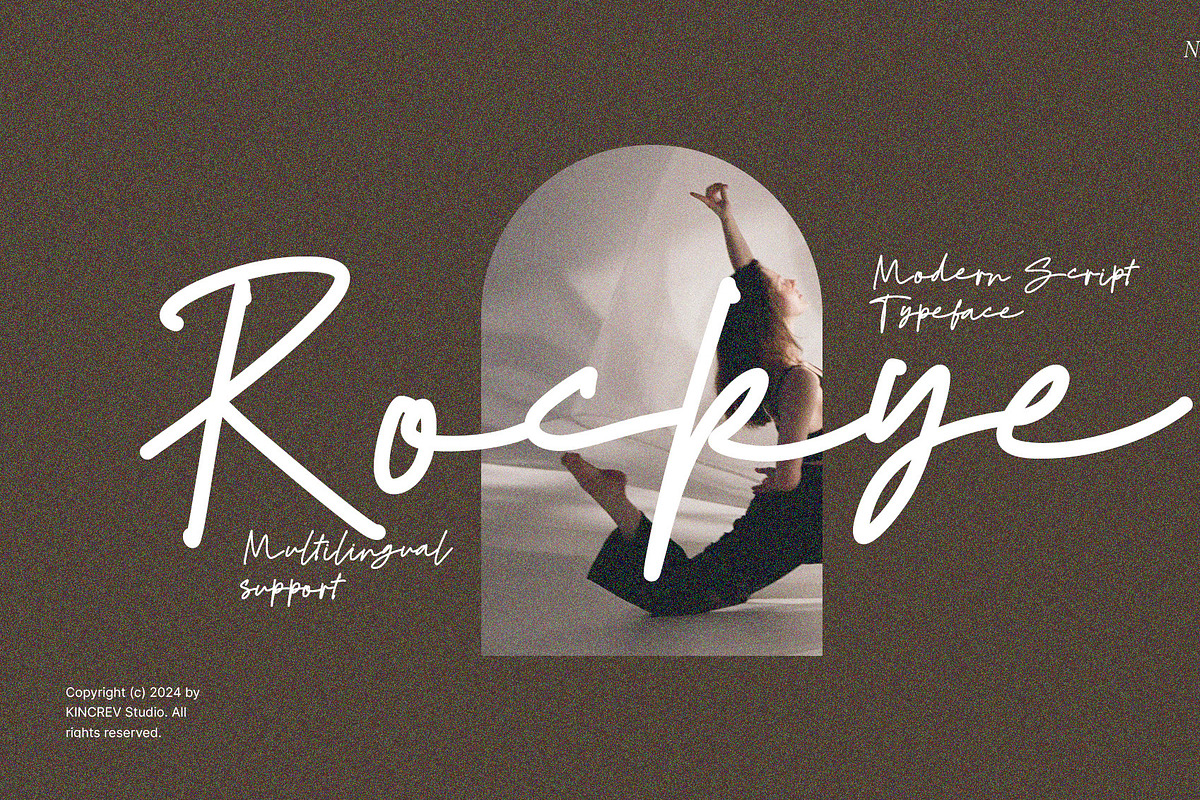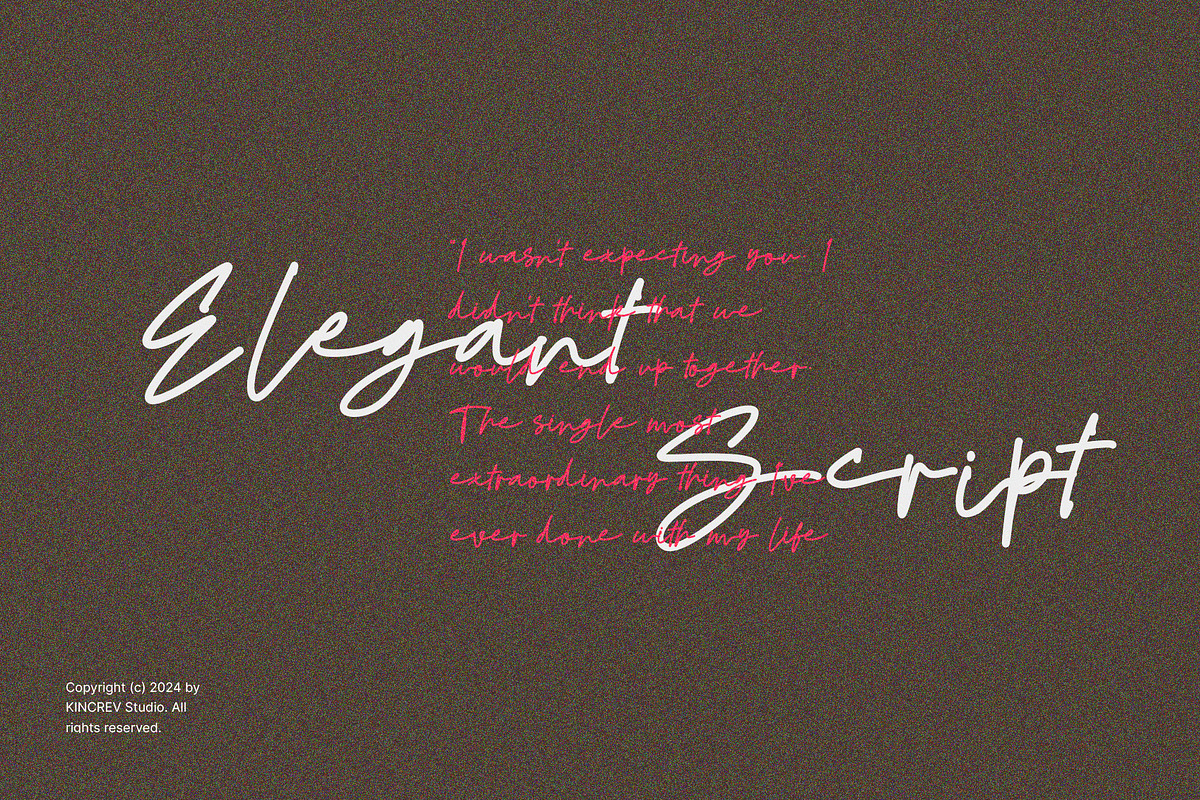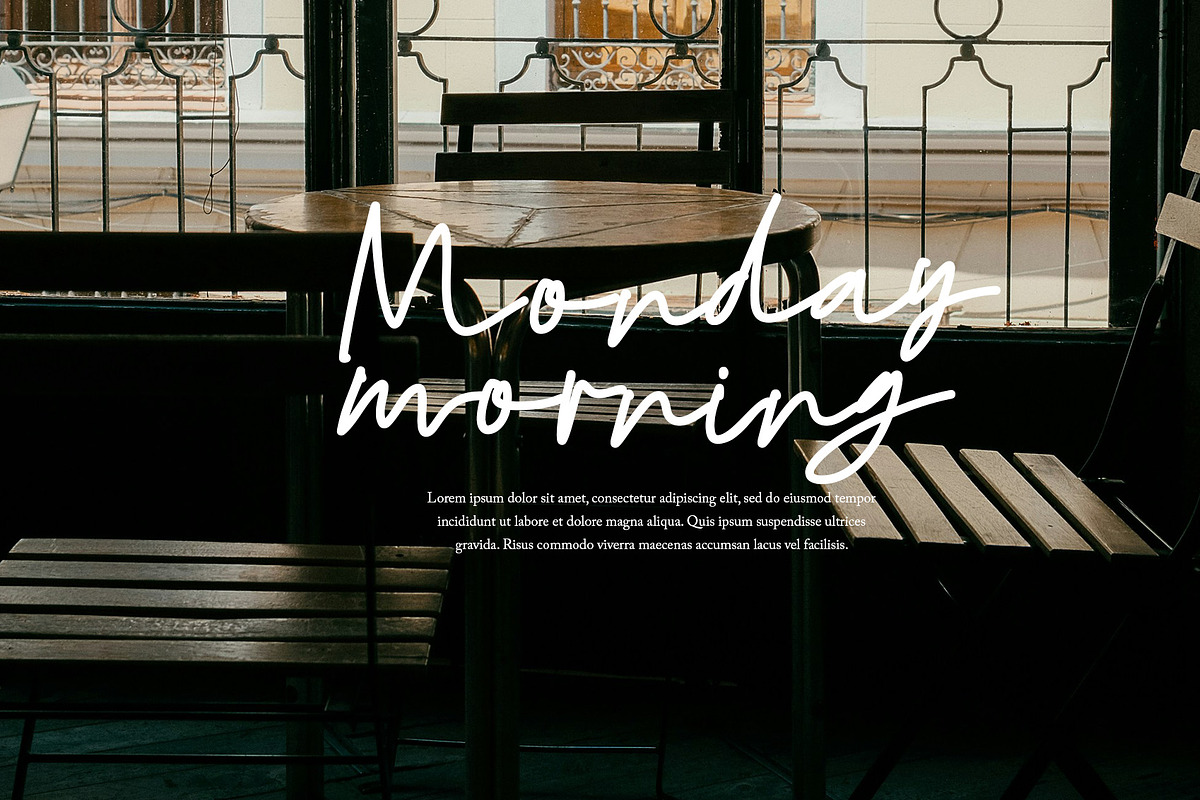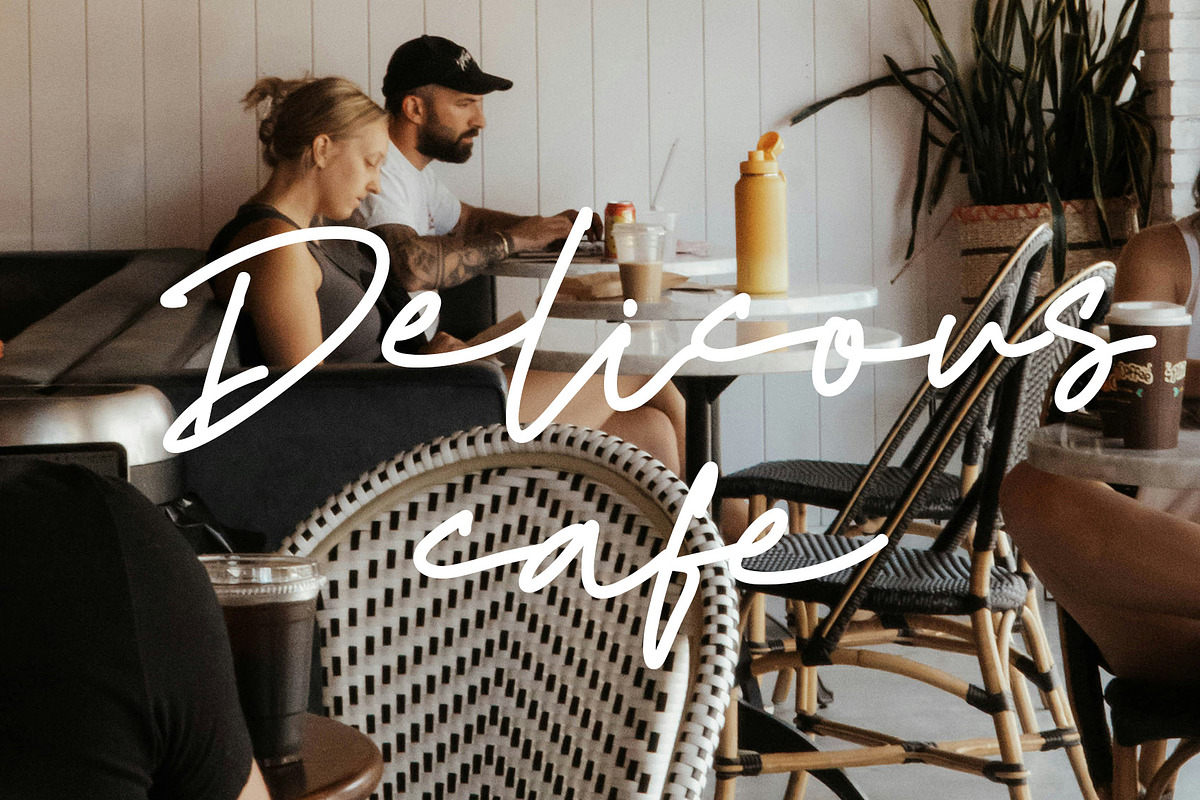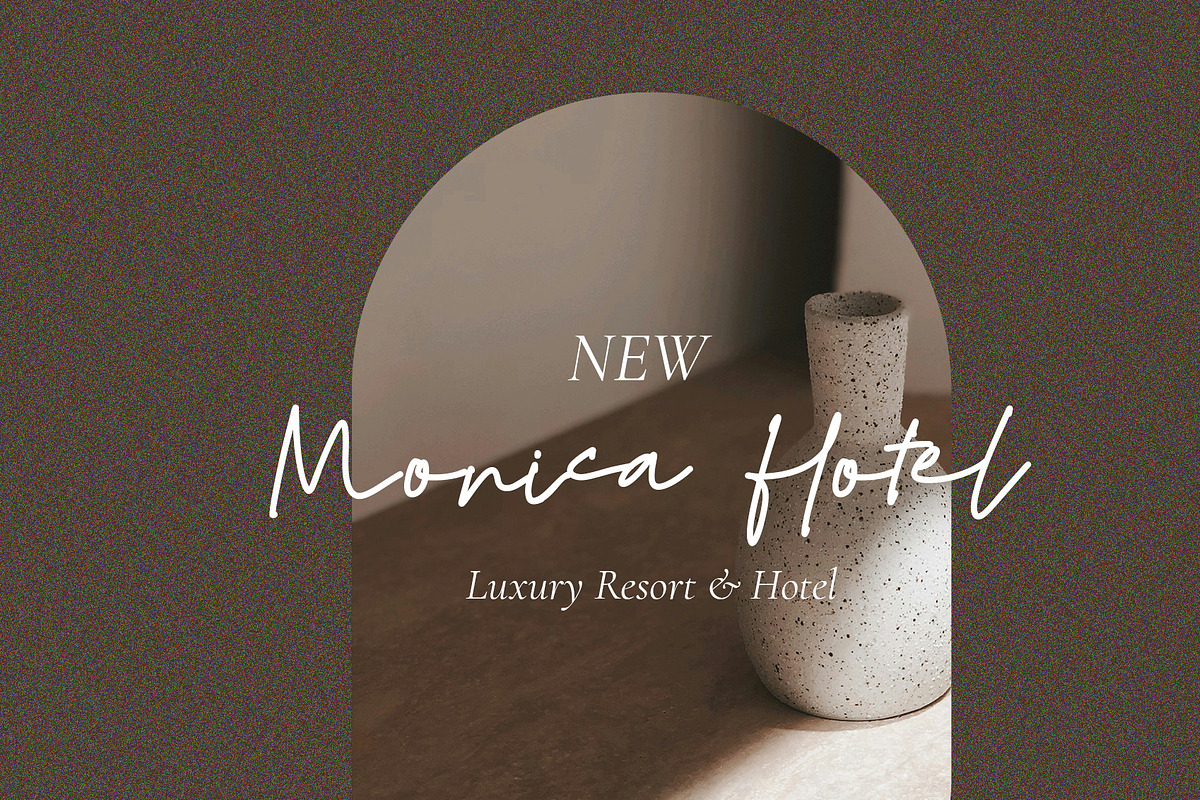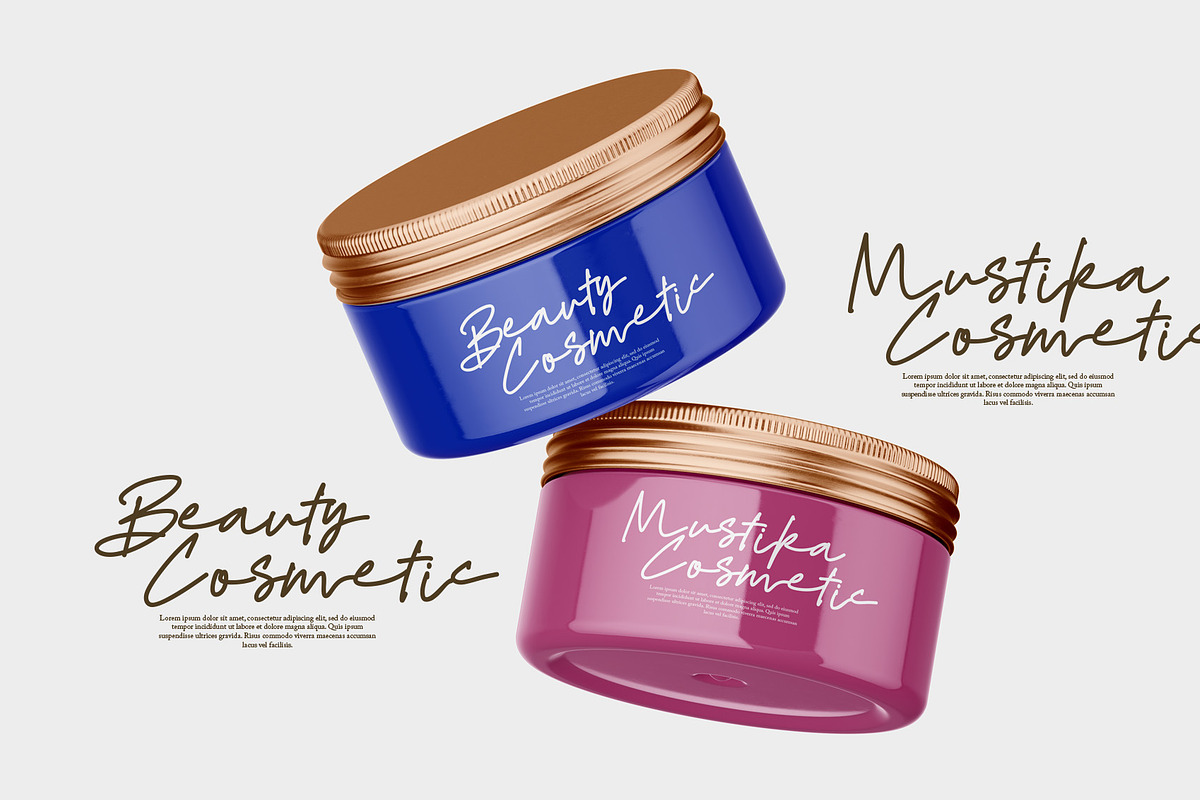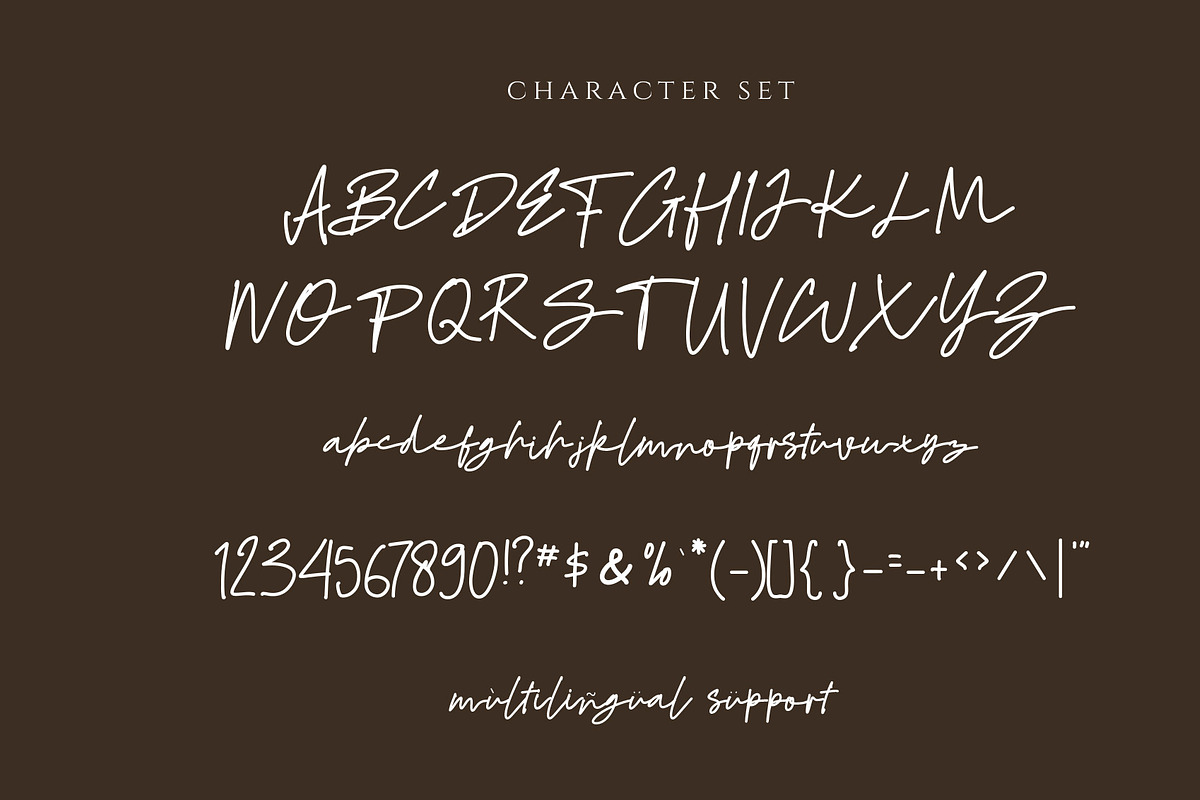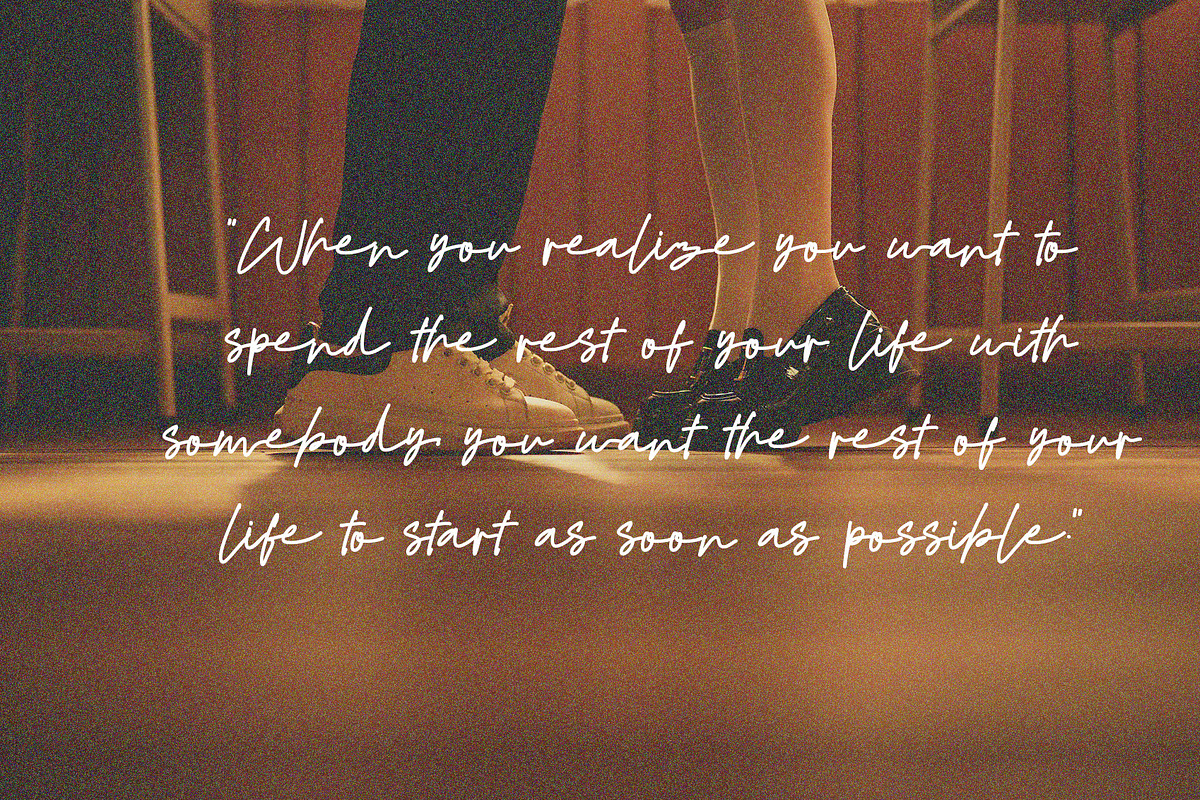
Rockye - Modern Script Typeface
Hello, Everyone! Ready to make your branding design outstanding? If you need to create a creative, modern and elegant look for your business, work on a poster for an event, or whatever your projects are, Rockye - Modern Script Typeface is the perfect one for you.
Rockye, a Modern script font is font for you to get your designs with creative, modern and elegant look. It is made in uppercase & lowercase letters which are easy on the eyes and nice to look at, and easy to read. This font is designed to bring your brandings to life and add a touch of modernity, fun and style.
- Alternates Feature
Rockye fits for any design projects, such as posters, banners, logos, book covers, album covers, quotes, invitations, greeting cards, name cards, headings, printed products, merchandise, social media, etc. Find out more ways to use this font by taking a look at the font preview.